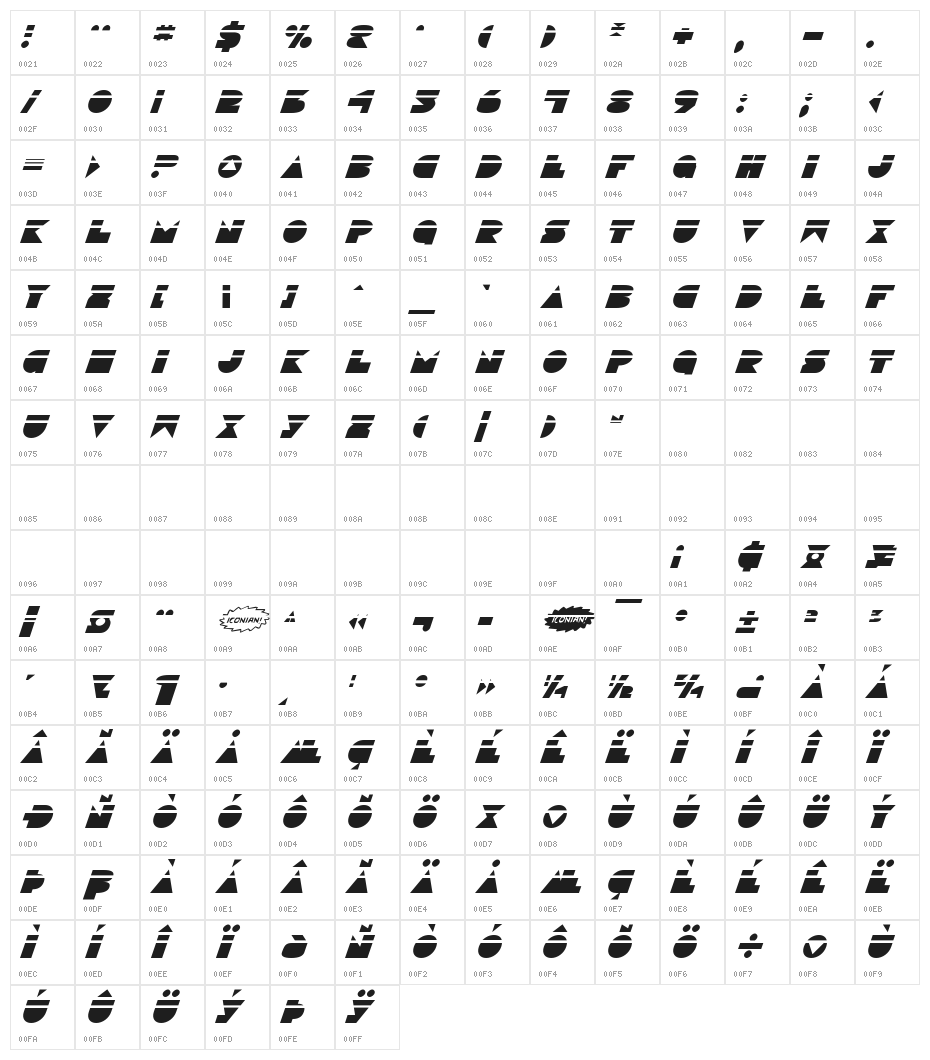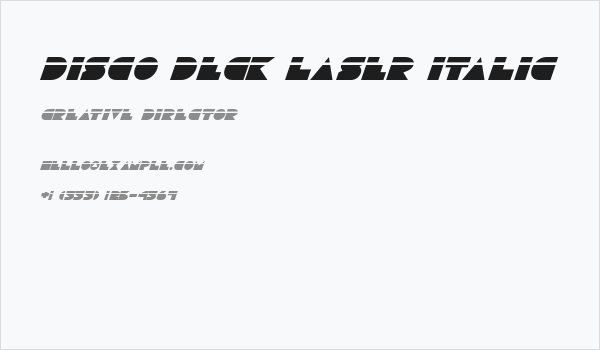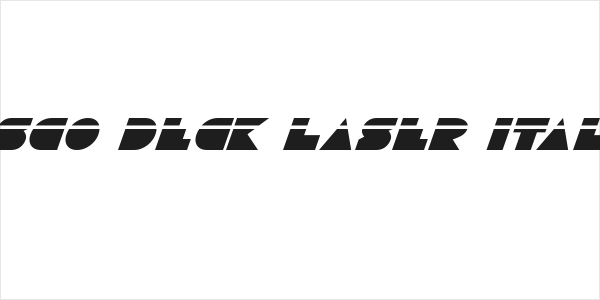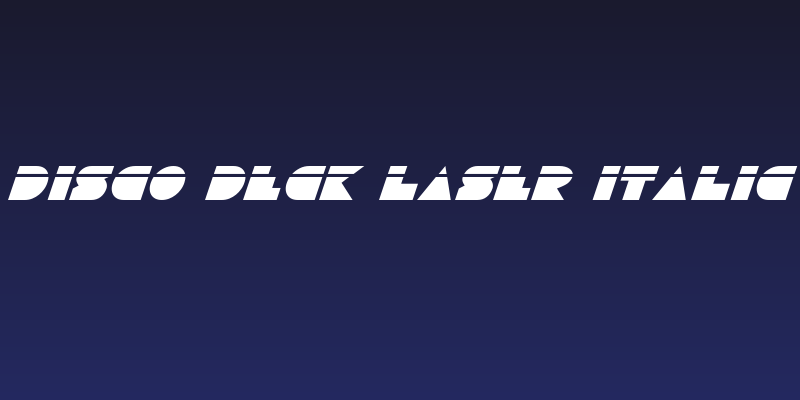
Disco Deck Laser Italic Font
Disco Deck Laser Italic Description
This font features a bold and dynamic style with a futuristic flair. The characters are designed with sharp angles and geometric shapes, creating a sense of movement and energy. The italic slant adds to its dynamic appearance, making it ideal for projects that require a modern and edgy look. The uppercase and lowercase letters maintain a consistent style, with the numbers and special characters complementing the overall design. The font's unique structure makes it stand out, perfect for eye-catching headlines or branding materials.
| Proposed Projects | Ideal for sci-fi themed designs, modern branding, event posters, and digital media. |